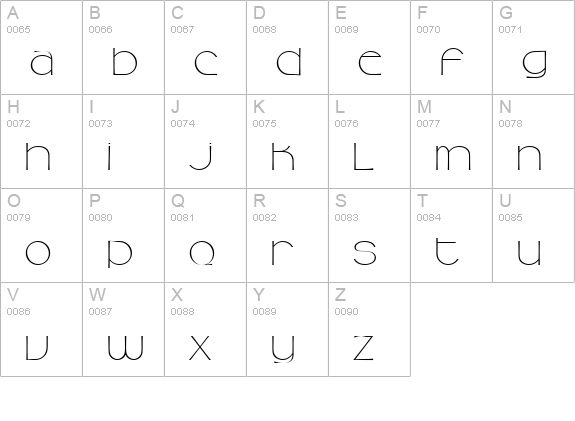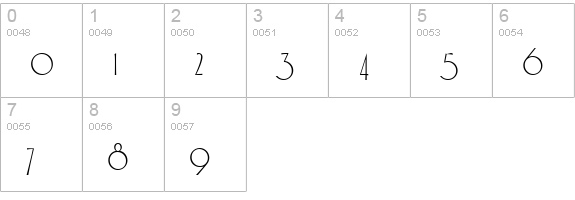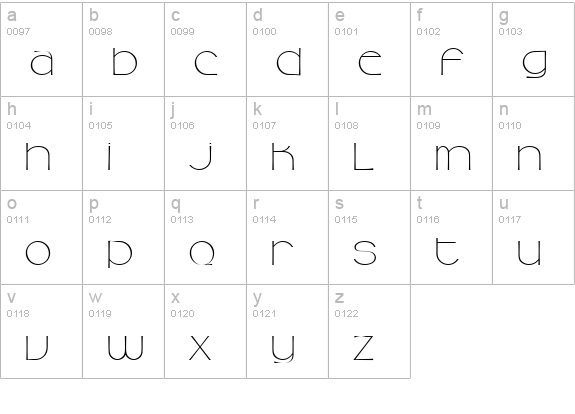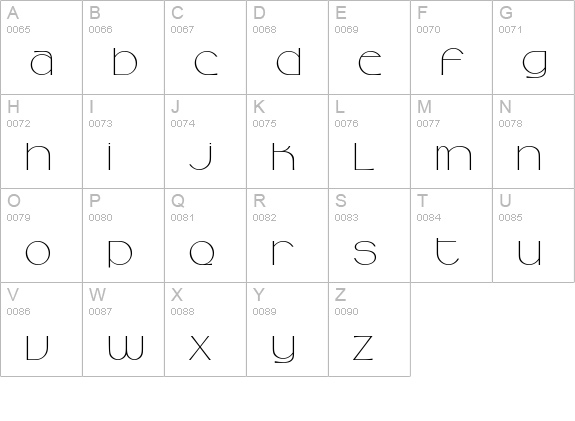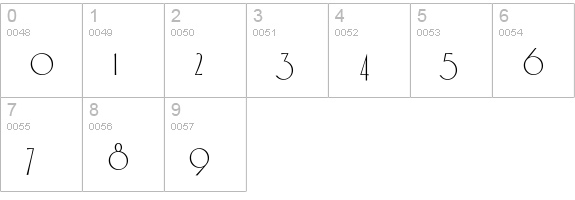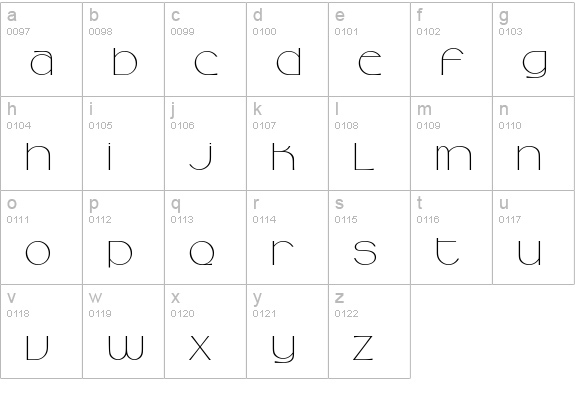
Introducing the exquisite CamelliaDEE font - a graceful and elegant typeface that exudes sophistication and charm. With its delicate strokes and intricate details, CamelliaDEE is perfect for adding a touch of beauty to any design project. This versatile font is ideal for creating stunning invitations, branding materials, and more. What makes CamelliaDEE font even more appealing is that it is available for free download at FontsMarket.com. Yes, you heard that right - you can easily access this stunning font without spending a dime! So why wait? Enhance your projects with the timeless beauty of CamelliaDEE font today.